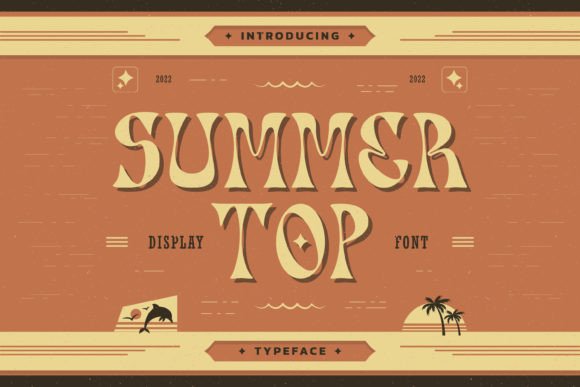
Unleash your creativity with Summer Top Font, the ultimate display font that takes you back to the golden era of retro typography. Crafted by the visionary designers at inferno.type3, Summer Top is a masterpiece inspired by classic Japanese lettering, reimagined with a modern twist. This font family is a symphony of meticulously designed characters, each stroke imbued with a timeless charm that will elevate your designs to new heights.
Summer Top's distinct and captivating style is a harmonious blend of retro aesthetics and contemporary flair. Its bold, geometric letterforms exude a sense of playfulness and nostalgia, while its smooth, flowing lines lend an air of elegance and sophistication. Whether you're a seasoned designer or just starting, Summer Top is the perfect font to add a touch of vintage charm to your projects.
Immerse yourself in a world of boundless creativity with Summer Top. Its versatility knows no bounds, making it the ideal choice for a wide range of design projects. Create eye-catching logos that evoke a sense of nostalgia, design captivating posters that transport viewers to another era, or craft stunning social media graphics that stand out from the crowd. With Summer Top, the possibilities are endless.
Step into the spotlight and let your designs shine with Summer Top. Its unique character set, including support for Japanese text, opens up a world of possibilities for multilingual projects. Craft beautiful and engaging designs that resonate with a global audience. Summer Top is the key to unlocking your creative potential and leaving a lasting impression on your audience.
Don't resist the allure of Summer Top. Its timeless beauty and versatility make it an essential addition to any designer's toolkit. Its retro-inspired charm will add a touch of nostalgia to your projects, while its contemporary edge ensures it remains relevant and stylish. Experience the joy of creating designs that are both visually stunning and emotionally captivating with Summer Top.